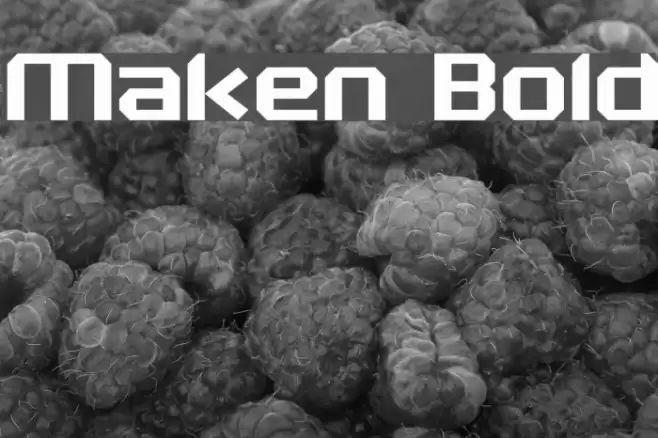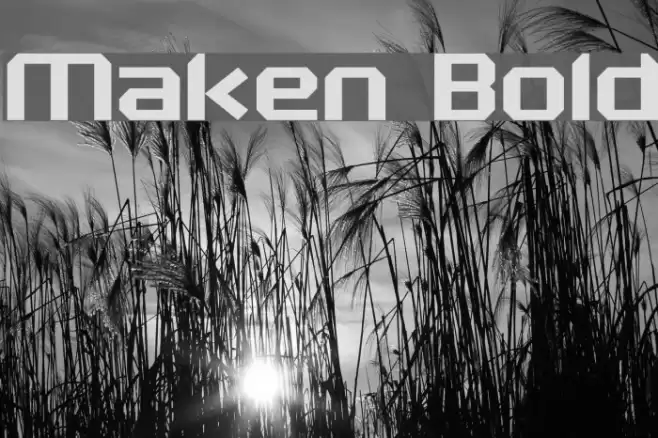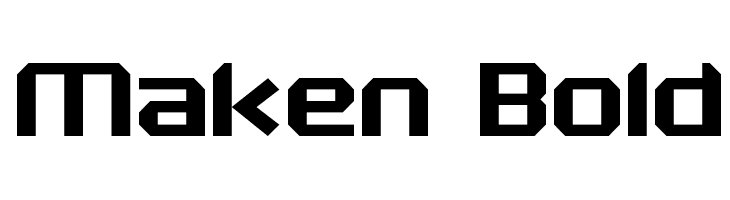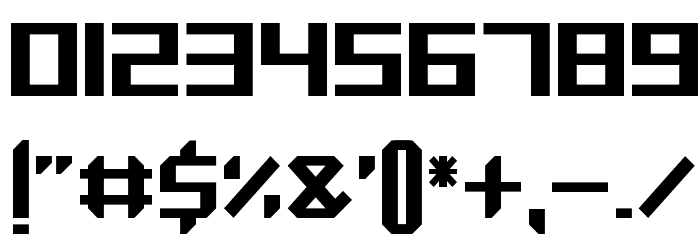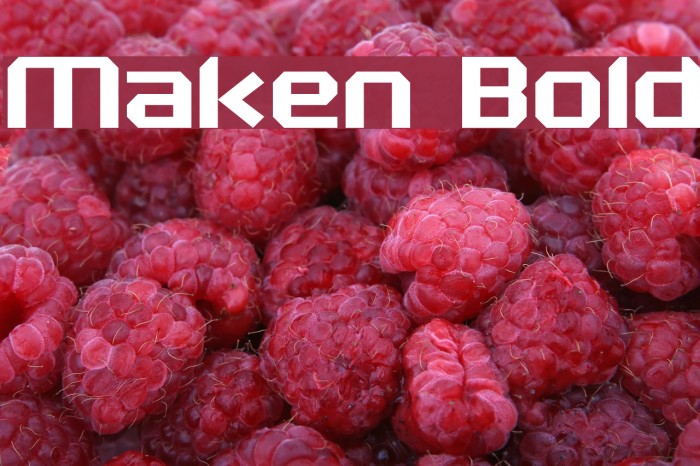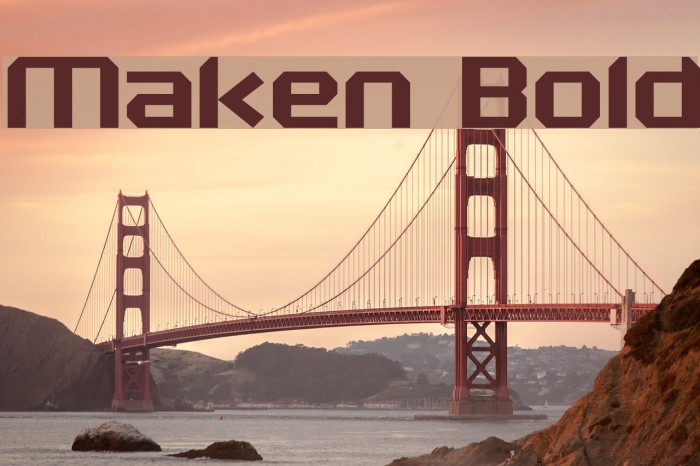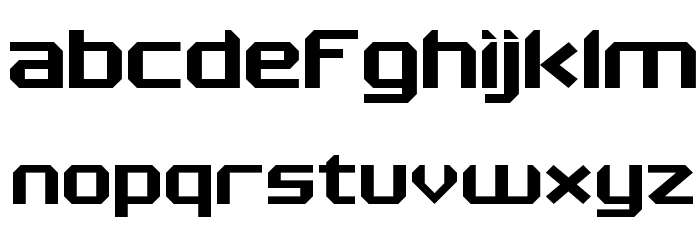
Maken Bold Font
Maken Bold Description
This font features a bold and geometric design, characterized by its blocky and angular letterforms. The uppercase and lowercase letters maintain a consistent width, creating a uniform appearance. The font's structure is modern and futuristic, with sharp edges and a strong presence. The numerals and special characters follow the same design principles, ensuring a cohesive look across all glyphs. This font is highly legible and makes a strong visual impact, suitable for attention-grabbing designs.
A bold, geometric font with angular letterforms and a modern aesthetic from Uncategorized fonts.